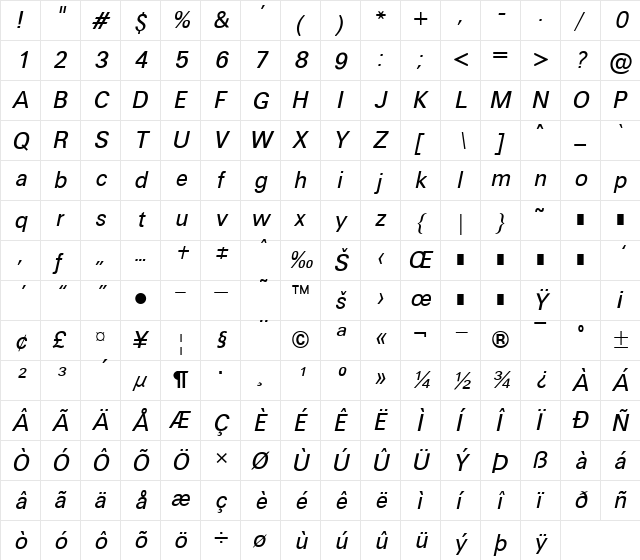
Unv Italic
Design Context for Unv Typeface
Unv takes a measured approach to typography — its balanced proportions and neutral character make it a reliable workhorse for both digital and print work. The slanted form adds forward momentum and visual energy.
Pro Tip: Use Unv for emphasis, pull quotes, and subheadings where its slanted energy can add rhythm to the layout.